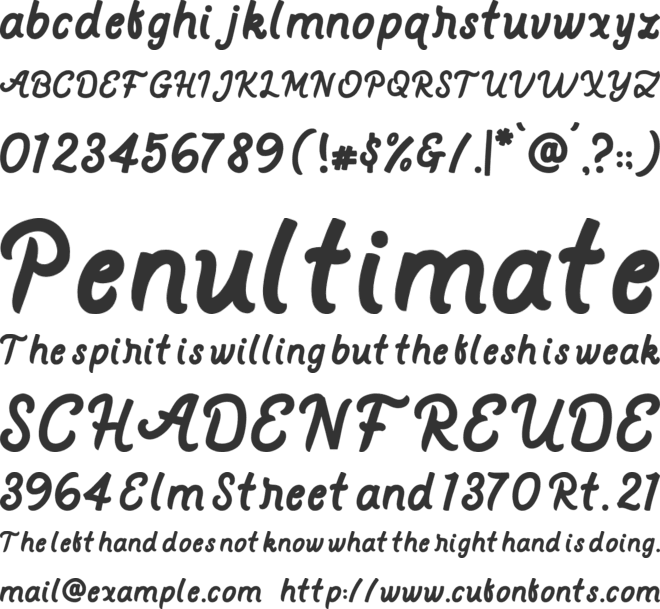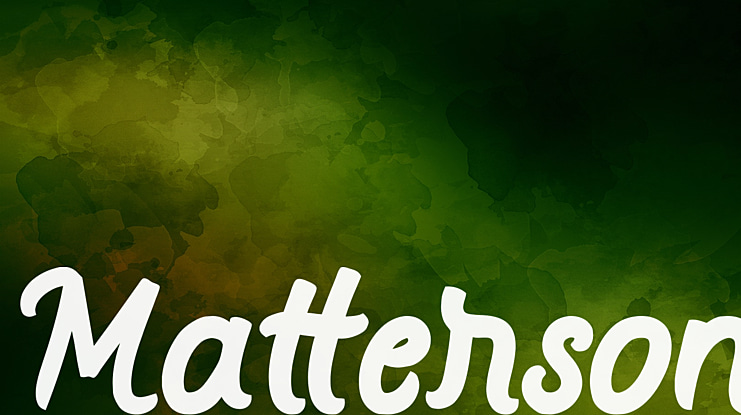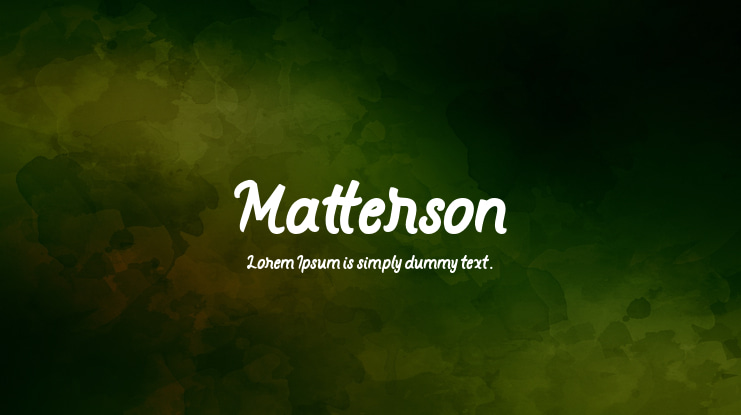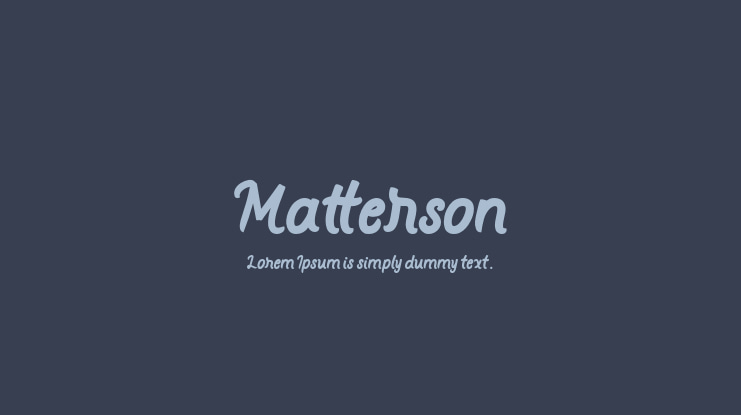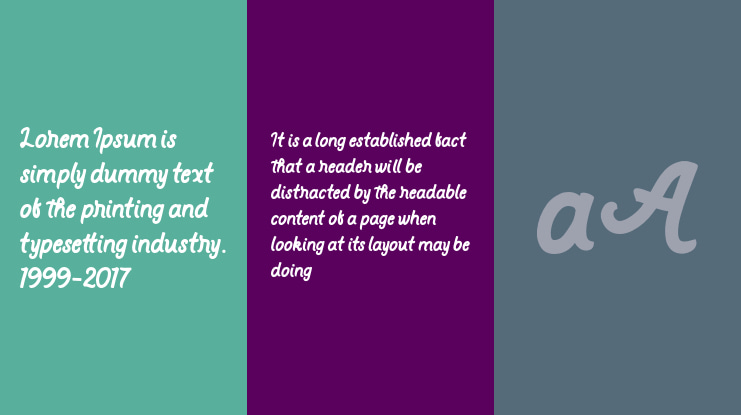
Matterson Font
Introducing our new release, Matterson Modern Handwritten Typeface. This typeset is perfect for brand logo, invitations, greeting card, or even any kind of project. With multilingual feature and style variations, this typeface would further enhance the aestethical aspect of your work.Visit our website :https://displaytypefont.com/product/matterson/